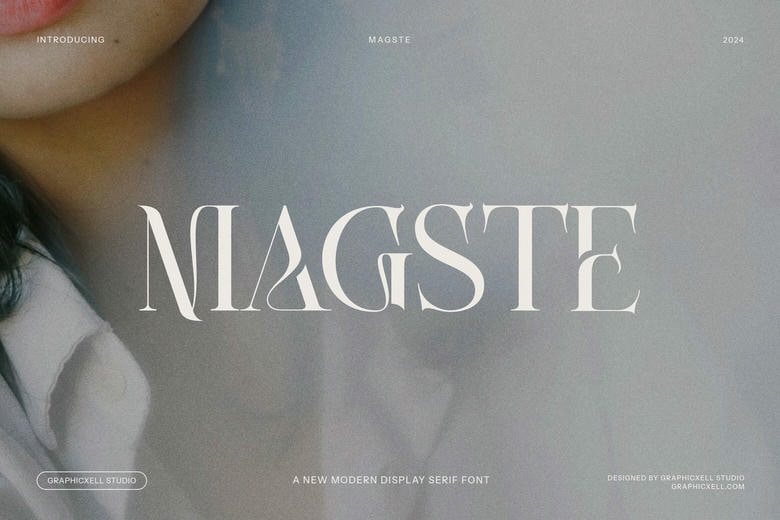
Magste Font
Magste is a great display serif typeface that is designed to come in both the vintage and chic styles. Thanks to the perfect and sleek inspirations that Magste has in its design, Magste represents a timeless appeal with a perfect and sleek image. Perfect for those communicators who are searching for an elegant and beautiful font with a great personality and a touch of the vintage, this font shape is classical.
The Opentype features that Magste come with are the flowing stroke endings/cut in the letterforms to create the feeling of continuous flow throughout the magste which are suitable for use in projects that require elegance and legibility. Magste Pro editor tool is incredibly useful whether if one desires to design a luxury logo, come up with a memorable brand name, or even develop product packaging, a certain class is instantly added to each element. Serifs are thin giving it a luxurious feel and smooth curves mean it has a sophisticated air about it, thus it’s ideal for specialized shops and premium marketing kind of logos.
Magste is ideal for use in editorial design, as it can easily enhance the design of magazines, advertisements and website typography. Its antique look and feel lends the product a rich history and sense of maturity, guaranteeing your material will not become lost in the plethoria of other newspapers/magazines. From product labels and even fashion campaigns, Magste certainly how to work gracefully powerful into a design aesthetic.
In food packaging or a luxury brand or in any task that needs that minute touch of class, Magste is your answer. It even bears the look of some of the traditional vintage fonts and its classic look will definitely make a lasting impression on any printed or digital media. Lift the level of your brand with Magste branded products — the heritage of quality for today’s world and beyond.
Magste Serif Font